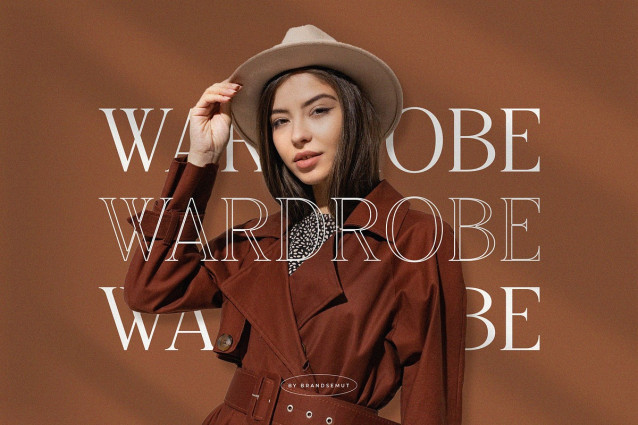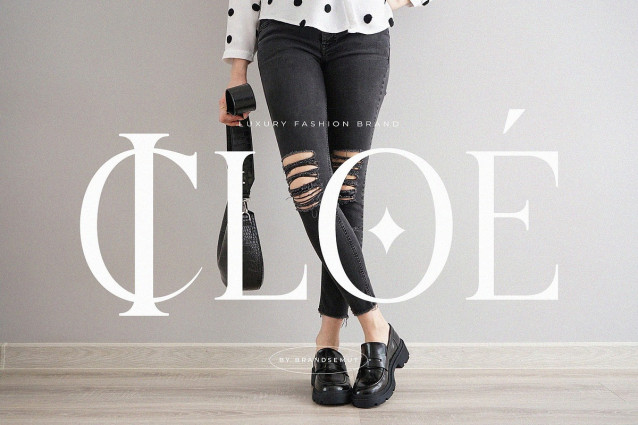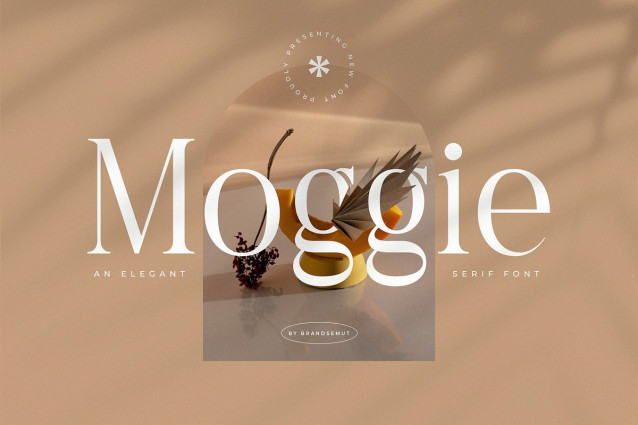
Moggie Font
Moggie Font is an elegant modern serif font designed with sophistication and artistic flair. Featuring full uppercase and lowercase characters, Moggie offers refined letterforms, smooth curves, and high contrast strokes that create a delicate yet confident presence — perfect for luxury branding, magazine titles, wedding invitations, and beauty packaging.
Every detail in Moggie has been carefully crafted to deliver warmth, class, and versatility across both digital and print media. This font is your go-to for soft minimalism with a premium feel.